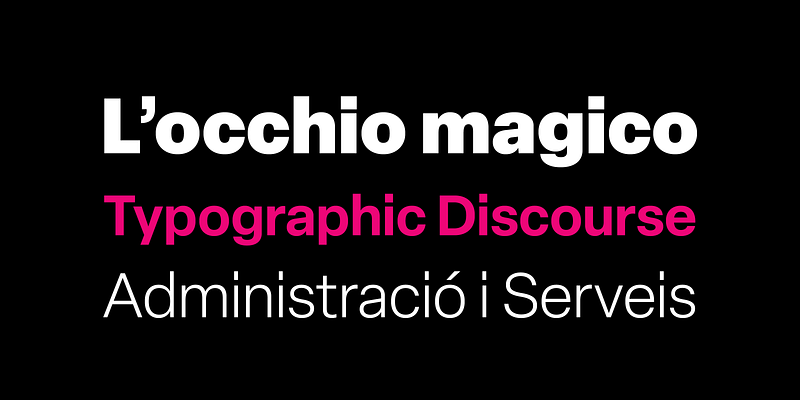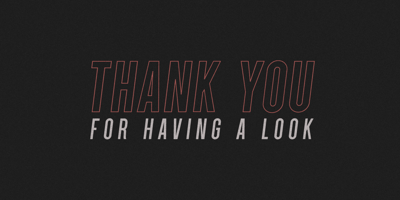
Elza Font Free Download is a versatile modern sans-serif typeface that blends minimalist design with geometric precision and subtle humanist touches. Crafted for clarity and style, this font is ideal for branding, editorial layouts, web design, packaging, signage, and user interfaces where clean and professional typography is essential.
Elza Font Free Download features balanced proportions, a generous x-height, and smooth curves, offering excellent readability across both headlines and body text. Whether you're designing for tech, lifestyle, fashion, or business, Elza adapts beautifully to a wide range of visual styles and formats.
Available in multiple weights and styles—including Condensed, Narrow, and Text variants—Elza offers a complete typographic system for consistent and flexible design across media.